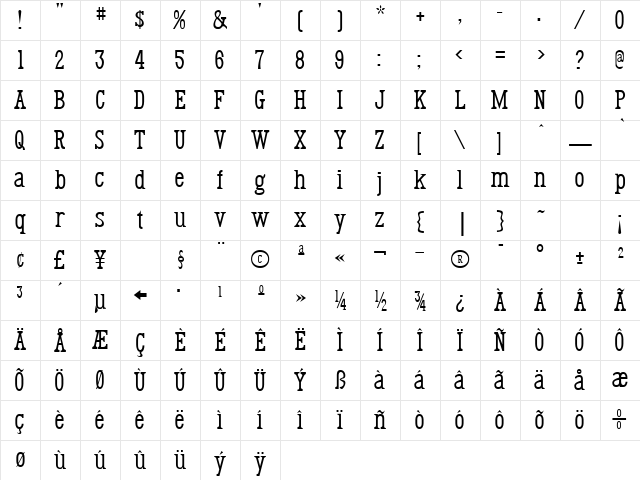
Renslaer Regular Free Font
Renslaer Regular
Design Context for Renslaer
Renslaer is a composed and adaptable typeface that performs quietly and consistently across a wide range of design contexts.